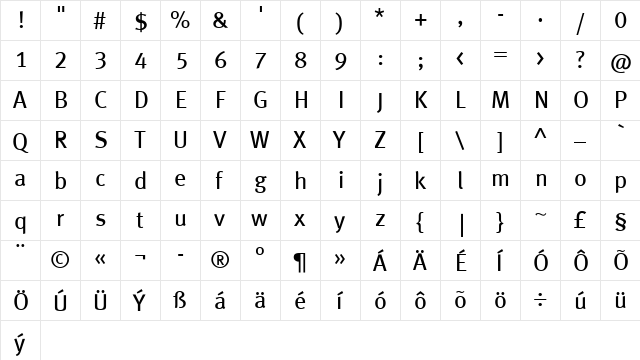
MetaBookCELF Roman
Design Context for MetaBookCELF Typeface
MetaBookCELF takes a measured approach to typography — its balanced proportions and neutral character make it a reliable workhorse for both digital and print work.
Pro Tip: Pair MetaBookCELF with a font of contrasting weight or personality to build a more expressive typographic hierarchy.